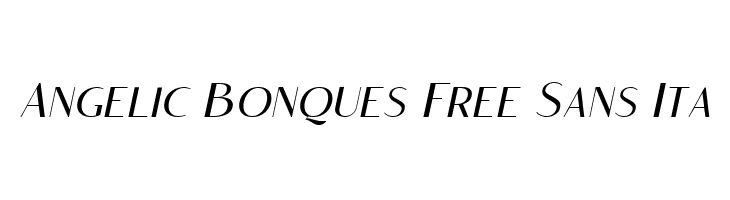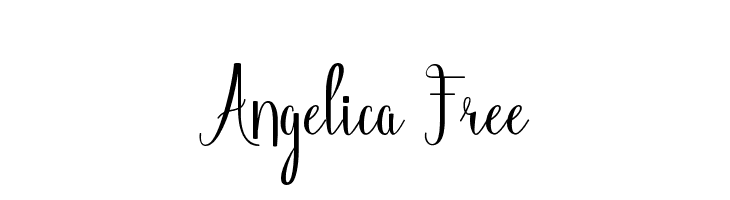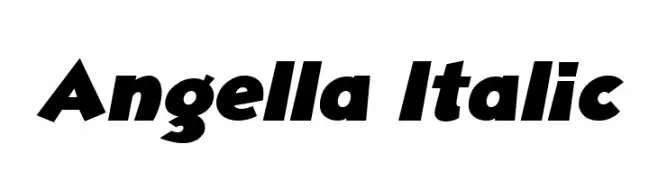
• Angelface
An elegant script font with flowing, connected letters and a sophisticated style.
• Angelic Bonques Free Sans
A modern, geometric font with sharp angles and clean lines, ideal for display use.
• Angelic Bonques Free Sans
A modern, elegant font with geometric shapes and consistent stroke width.
• Angelic Bonques Free Sans Ita
A modern, italic font with sleek, angular characters and a dynamic style.
• Angelic Bonques Free Sans Ita
A sleek, modern italic font with high contrast and elegant style.
• Angelic Bonques Free Script
An elegant, cursive handwritten font with smooth, flowing strokes.
• Angelica Free
An elegant and flowing script font with graceful curves and loops.
• Angella
A bold, playful font with thick, rounded characters.
• Angella Italic
A bold, italic font with strong, angular strokes and a modern, dynamic style.
• Angella Narrow
A bold, playful, and slightly condensed font with strong, angular strokes.